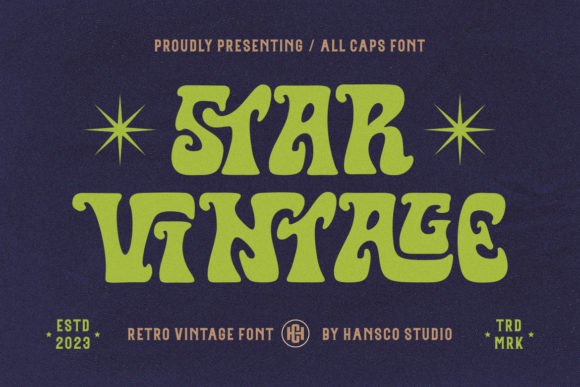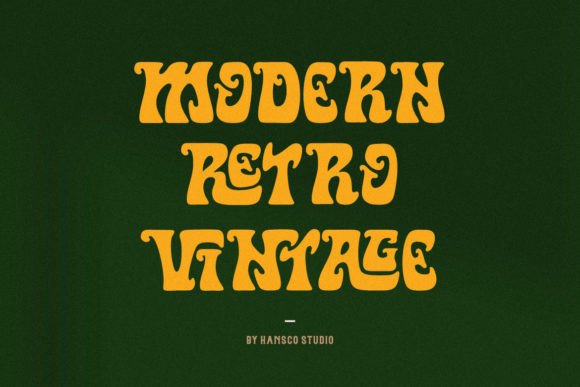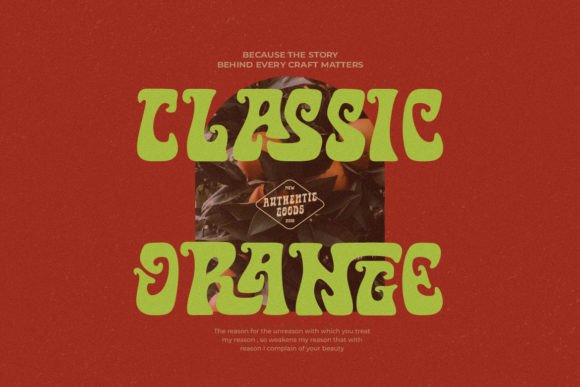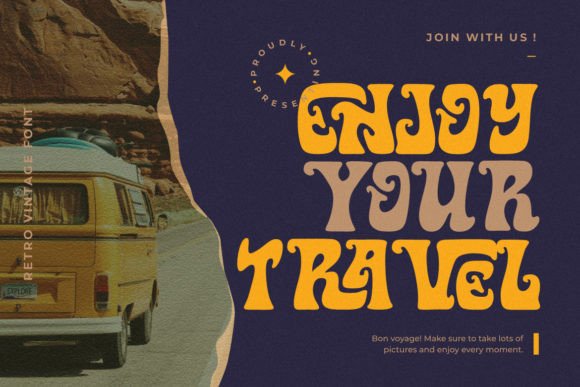
Star Vintage Font
About the Star Vintage Font
Let us introduce you to Star Vintage Font, where timeless design meets modern craftsmanship. Star Vintage is a retro serif display font with a slightly bold appearance. You will get ligature characters on some characters. Use this display font to add that special retro touch to any design idea you can think of!. Masterfully designed to become a true favorite, this font has the potential to bring each of your creative ideas to the highest level!